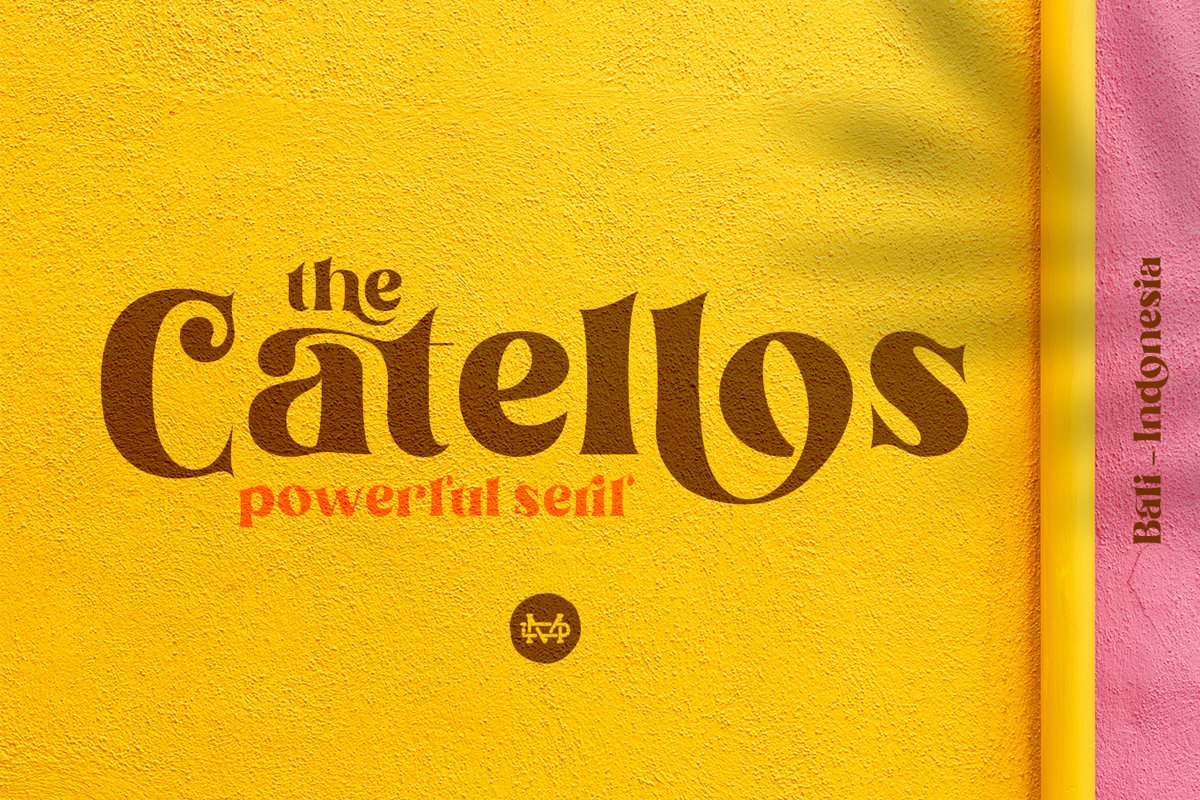
Catellos
Catellos Medium Italic
Catellos Medium
Catellos Bold Italic
Catellos Bold
Introduce Catellos is a serif Family. Comes with two variant medium and Bold with much alternate and ligature. Suitable to create any branding, product packaging, invitation, quotes, t-shirt, label, poster, logo etc.Feature
•  Uppercase
•  Lowercase
•  Number & Symbol
•  International Glyphs
•  Ligatures